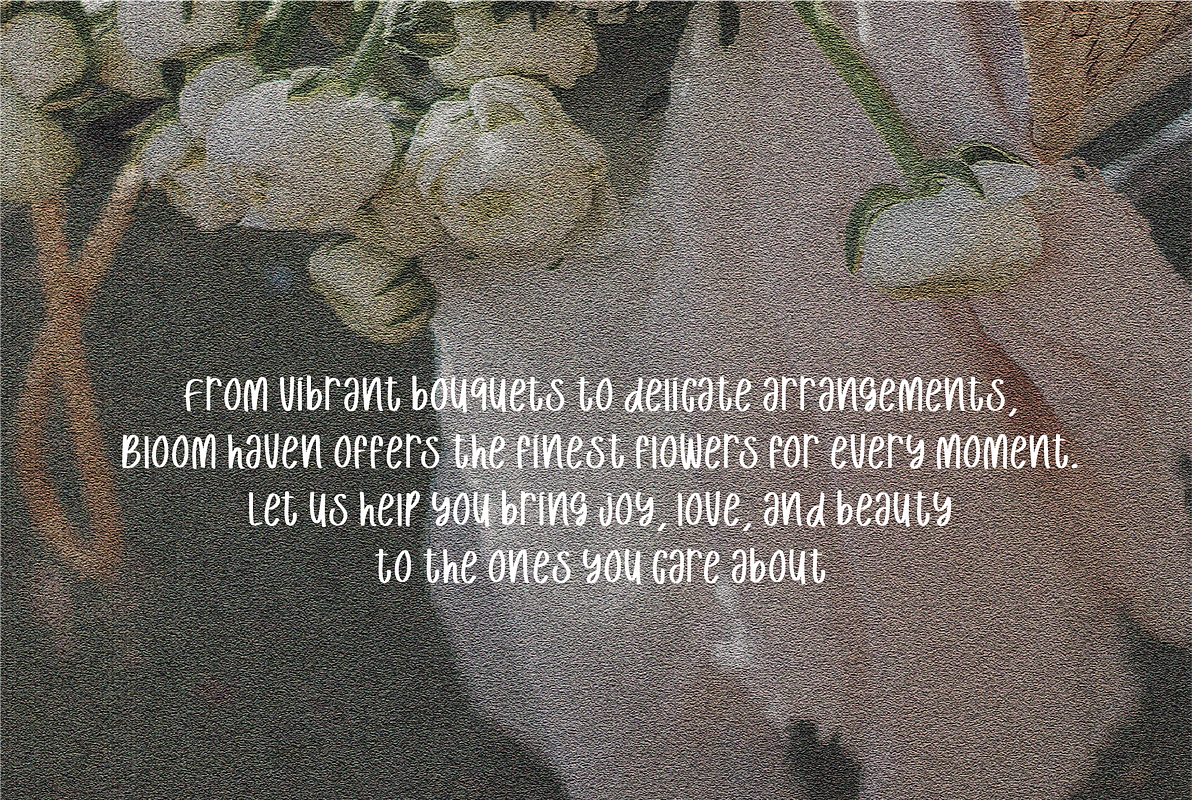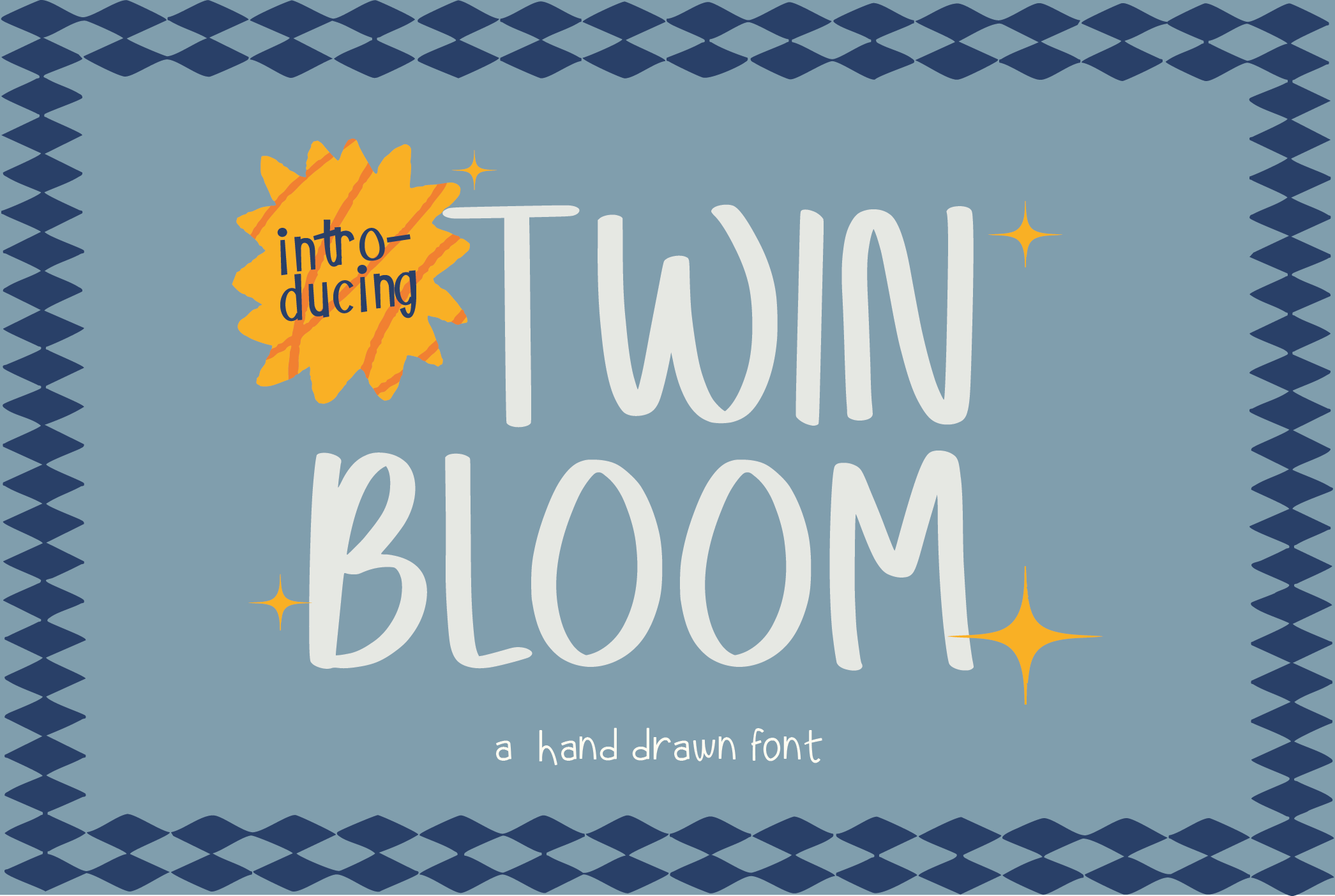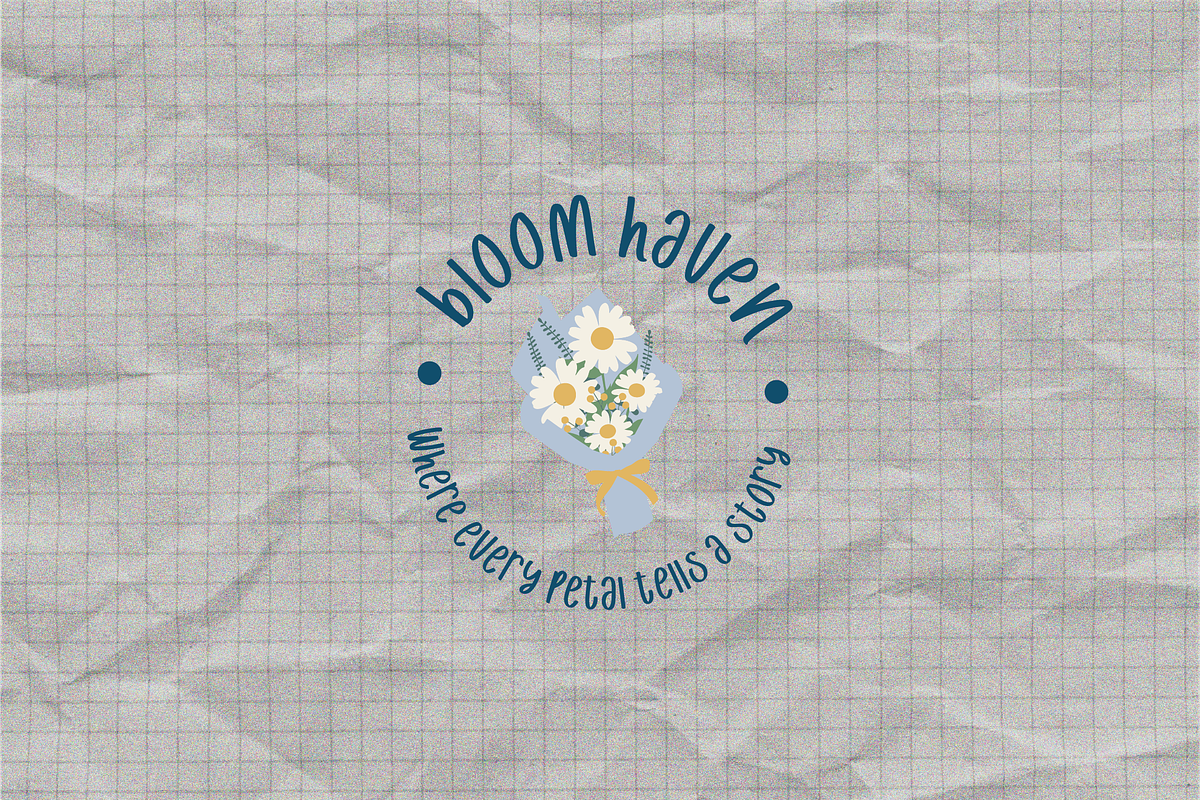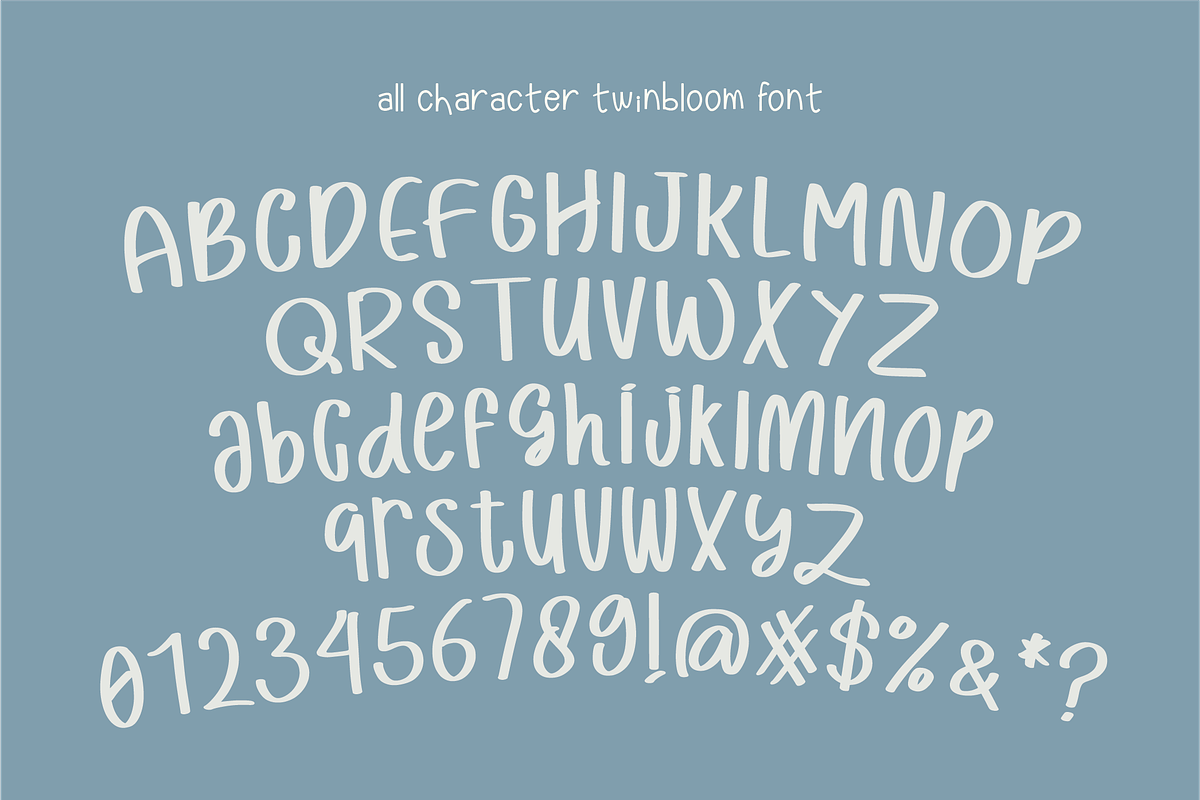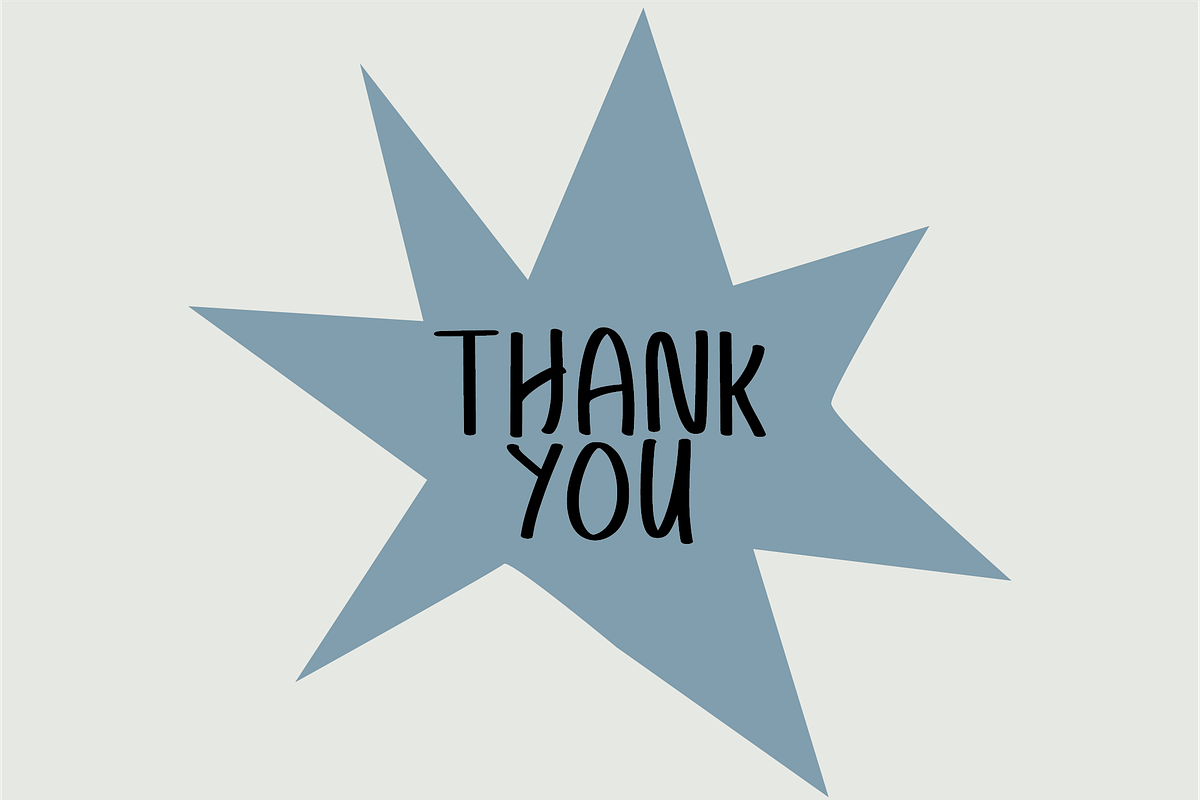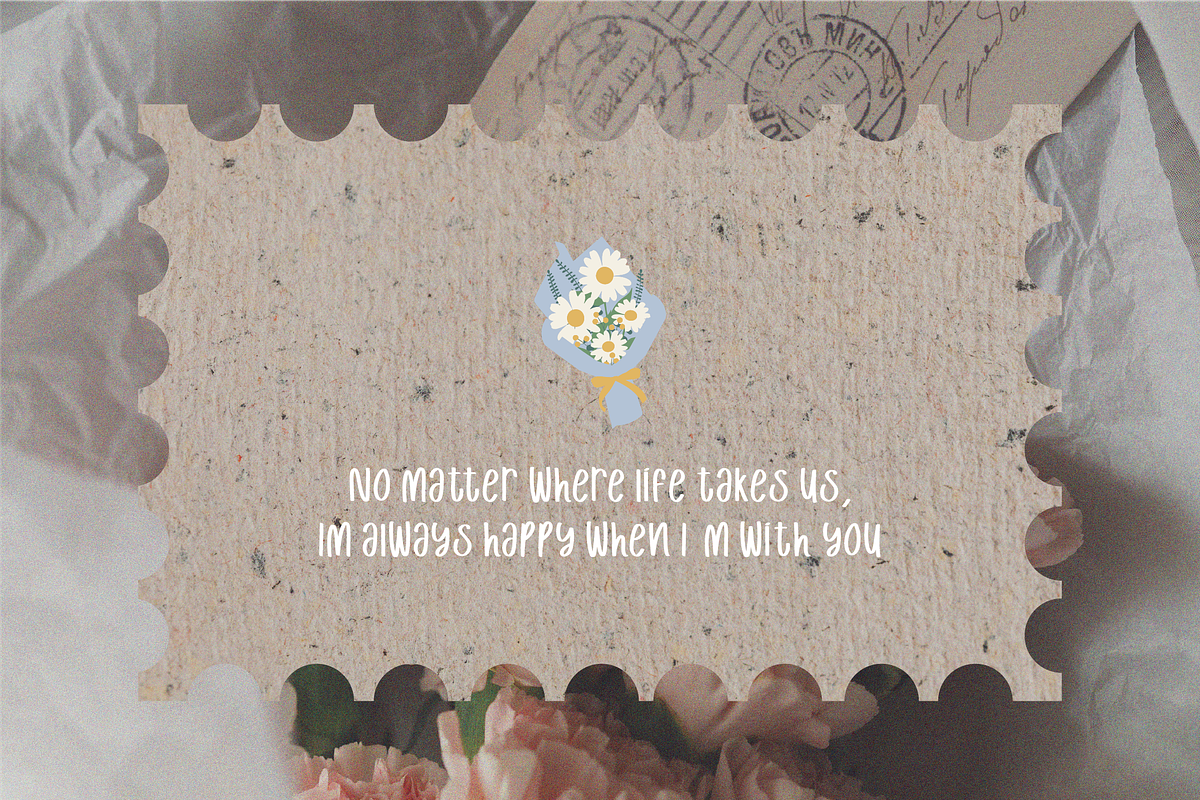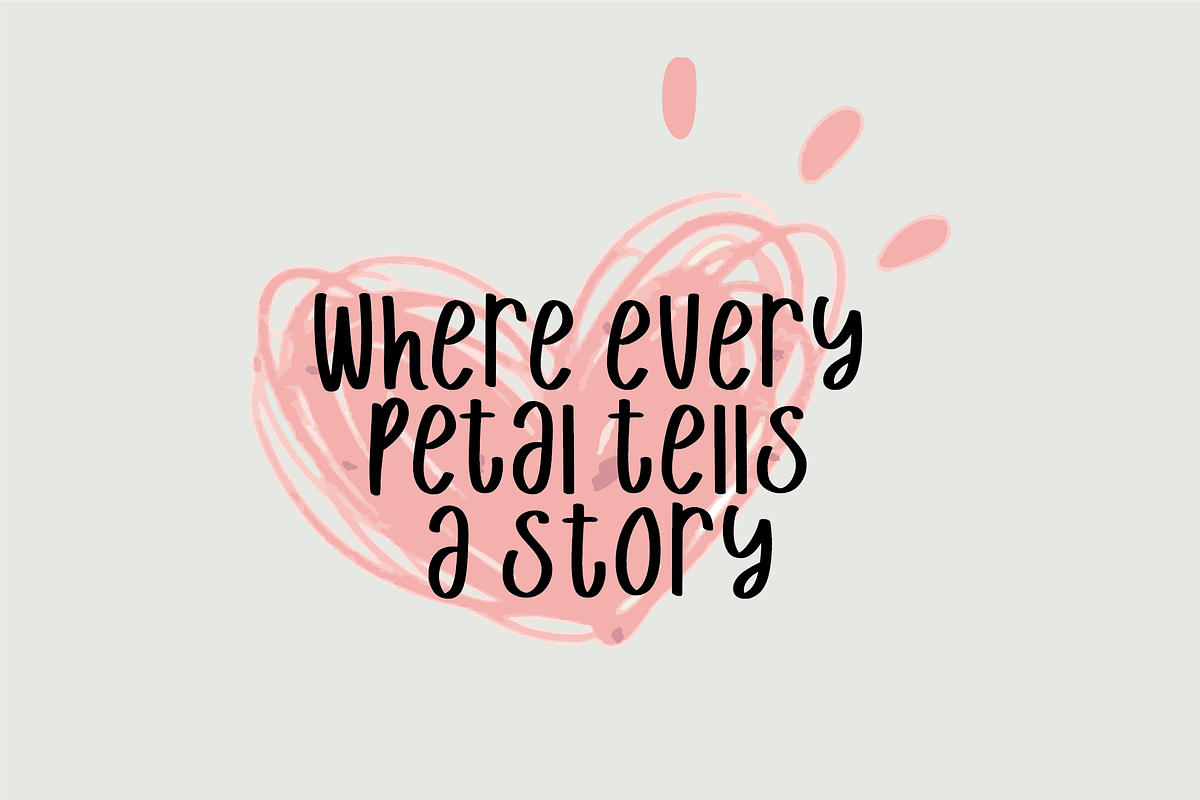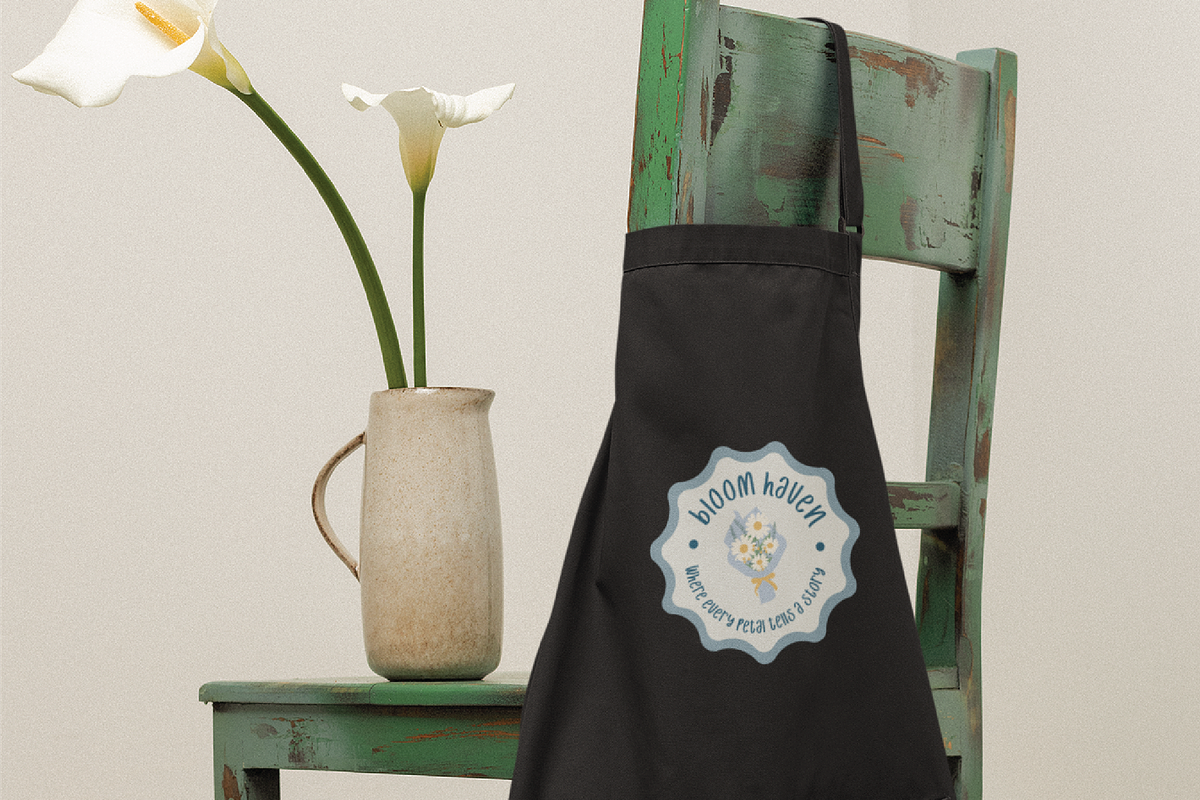
Twinbloom - Handwritten Font
Twinbloom The font has a playful and friendly design, featuring rounded, thick letterforms with a hand-drawn appearance. The letters are slightly irregular and have a casual, carefree feel, adding character and warmth to the text.
- Numbers, marks and symbols